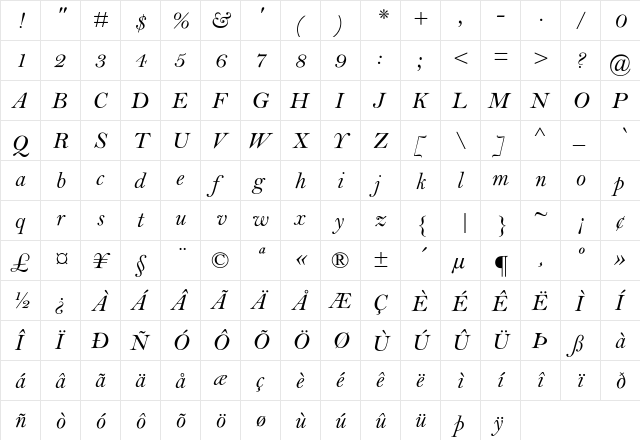
MBell-Italic Regular Font Preview
MBell-Italic Regular
Design Context for MBell-Italic Typeface
MBell-Italic offers clean, dependable letterforms without strong stylistic allegiance, making it a practical choice for designers who need flexibility. Its italic angle brings a sense of urgency and motion to the letterforms.
Pro Tip: Use MBell-Italic for emphasis, pull quotes, and subheadings where its slanted energy can add rhythm to the layout.